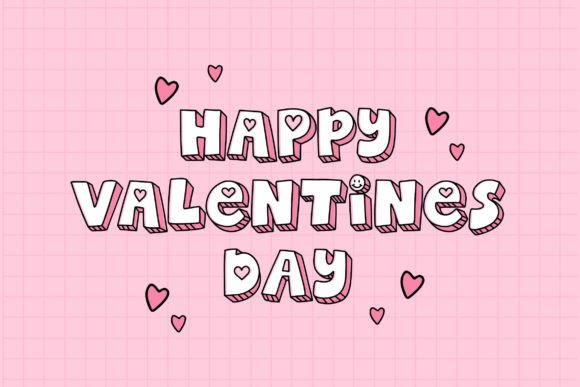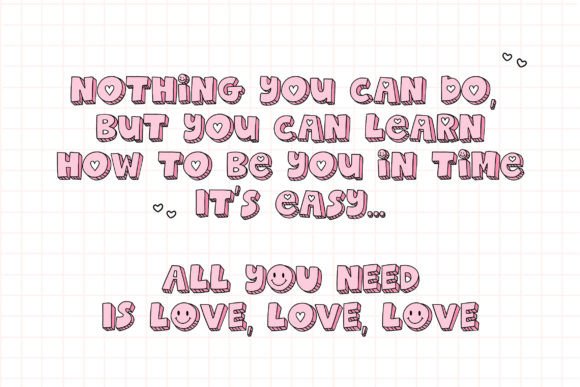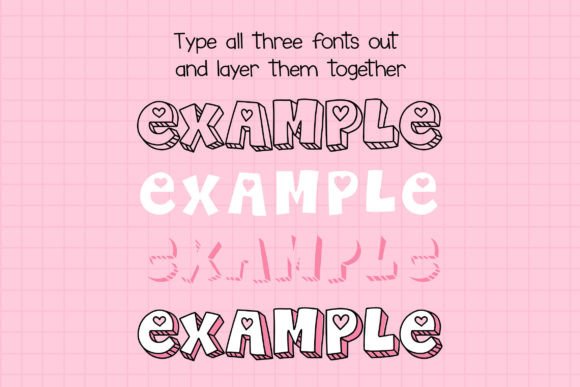
Introduction to Lovely Jubbly Font
Do you remember that moment when a single font choice completely transformed your design? For me, it was when I stumbled upon the Lovely Jubbly Font – a charming display font that instantly added a touch of whimsy to my project. As a designer, I know how crucial it is to have a versatile font library that can elevate any creation, and Lovely Jubbly Font is a game-changer.
With its high-quality design and transparent background, Lovely Jubbly Font is an excellent addition to any designer’s toolkit. Whether you’re working on a free download project or a high-end commercial design, this font is sure to bring a smile to your audience’s faces. And the best part? It’s available for free download, making it an invaluable resource for designers of all levels.
Key Features of Lovely Jubbly Font
- High-quality design resource for creative projects, suitable for a variety of applications.
- Transparent background, allowing for easy customization and layering.
- Comes in a single weight, making it easy to use in a wide range of design contexts.
- Designed to be highly legible, even at small font sizes, making it perfect for digital use.
Honest Review: Lovely Jubbly Font
As a designer, I’m always on the lookout for high-quality design resources to elevate my creative projects. The Lovely Jubbly Font has been a great addition to my toolkit, offering a unique and playful touch to my designs.
Here are some aspects where the Lovely Jubbly Font truly shines:
- ✨ Unique and quirky character set: The font’s distinct style and personality make it perfect for adding a touch of whimsy to your designs.
- ✨ High-quality rendering: The font is well-crafted and renders beautifully, even at larger sizes.
- ⚠️ Limited language support: The font only includes a basic set of characters, which may not be suitable for more complex design projects.
- ⚠️ Not ideal for small text: While the font looks great at larger sizes, it can become difficult to read at smaller sizes due to its unique character set.
Overall, I’m quite impressed with the Lovely Jubbly Font. Its unique style and high-quality rendering make it a great addition to any designer’s toolkit. Just be aware of its limitations, and use it accordingly.
Tips for Getting the Most Out of Lovely Jubbly Font
Lovely Jubbly Font is perfect for use in greeting cards, party invitations, and other creative projects that require a fun and playful touch. Its high-quality design and transparent background make it a great resource for designers and non-designers alike.